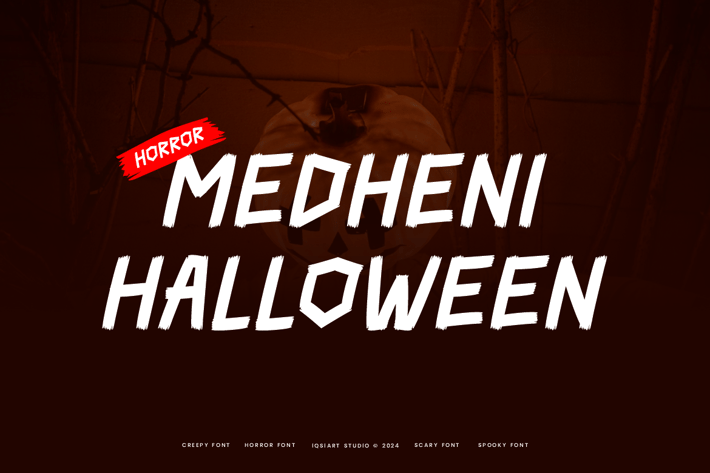
Medheni Halloween - Horror & Bloody Font
Medheni Halloween Font is a best and authentic display font.
This font can be used for your various needs.
We provide various themes and font styles.